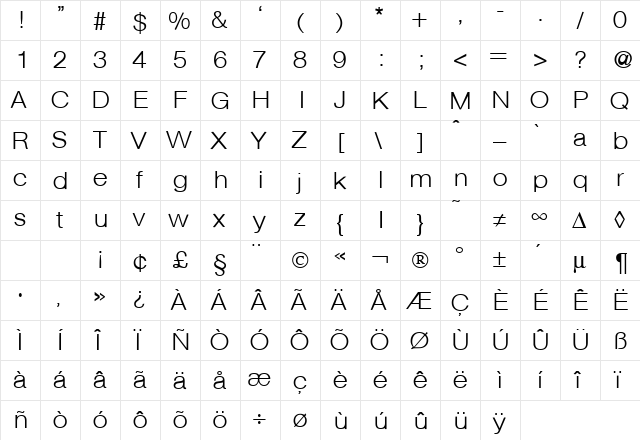
AtkinsExtendedLight Regular
Design Context for AtkinsExtendedLight Typeface
AtkinsExtendedLight offers clean, dependable letterforms without strong stylistic allegiance, making it a practical choice for designers who need flexibility. The delicate stroke weight brings airiness and refinement to layouts.